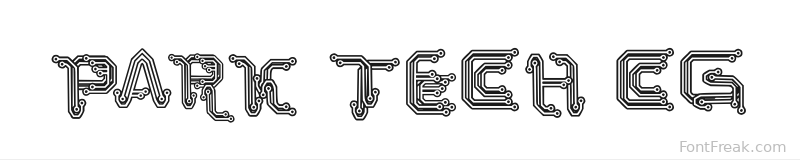
Park Tech CG Light
Park Tech CG
Park Tech CG Light, designed by Galdino Otten Fonts, is a unique display font that combines a modern aesthetic with a technological flair. This sans-serif typeface features a distinctive light stroke weight, creating an airy and contemporary appearance. The character design incorporates subtle decorative elements, reminiscent of circuit patterns, which enhances its tech-inspired theme. The contrast between the strokes is minimal, allowing for smooth readability while maintaining a visually intriguing structure. The spacing is well-balanced, making it suitable for various applications without overwhelming the viewer.
This versatile font excels in specific use cases such as branding for tech startups, futuristic posters, and digital media graphics. It would be ideal for website headers, app interfaces, and promotional materials that aim to convey innovation and modernity. Additionally, Park Tech CG Light can find its place in creative projects like music album covers or event flyers that require a touch of sophistication with a technological edge. Its unique style appeals to graphic designers, small business owners, and content creators seeking to make a memorable impact.
What sets the Park Tech CG Light font apart is its ability to blend functionality with artistic flair. The design captures attention while remaining legible, making it a fantastic choice for both print and digital applications. Available as a freeware, it provides an accessible option for those looking to elevate their design projects without budget constraints. The Park Tech CG Light font free download makes it easy for creatives to incorporate this striking typeface into their work, ensuring they stand out in a crowded visual landscape.